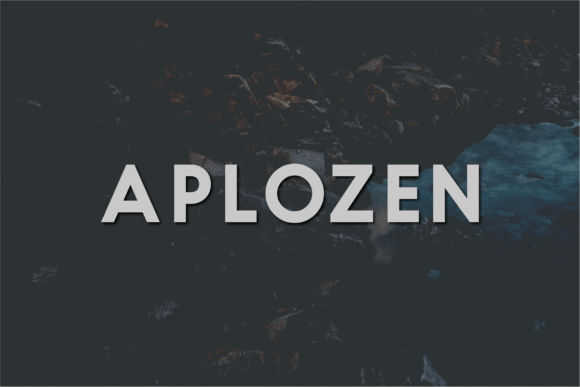
Aplozen Font: Elevate Your Designs with a Versatile and Modern Sans Serif
In the world of typography, fonts play a crucial role in communicating a message effectively. A well-chosen font can make or break a design, and that’s where Aplozen Font comes in – a game-changer for designers and crafters alike. Aplozen is a versatile, modern, and classy sans serif font that’s perfect for a wide range of applications, from logos and weddings to invitations, quotes, advertisements, print, magazines, and more.
The Characteristics of Aplozen Font
Aplozen Font boasts a clean and minimalist design, making it an excellent choice for designers who want to add a touch of sophistication to their work. Its sans serif style gives it a modern and edgy feel, while its versatility ensures that it can be used in various contexts. Whether you’re working on a logo, a wedding invitation, or a magazine spread, Aplozen Font is sure to impress.
What Makes Aplozen Font Stand Out
So, what sets Aplozen Font apart from other fonts? Here are a few reasons why it’s a cut above the rest:
- Versatility: Aplozen Font is designed to be versatile, making it perfect for a wide range of applications. Whether you’re working on a logo, a wedding invitation, or a magazine spread, Aplozen Font is sure to fit the bill.
- Modern and Classy: Aplozen Font’s modern and classy design ensures that your work looks up-to-date and sophisticated. Its clean lines and minimalist style make it perfect for designers who want to add a touch of elegance to their work.
- Easy to Read: Aplozen Font is designed to be easy to read, making it perfect for body text and headings. Its clear and concise design ensures that your message gets across effectively.
Use Cases for Aplozen Font
Aplozen Font is perfect for a wide range of applications, including:
- Logos: Aplozen Font’s modern and classy design makes it perfect for logos. Its versatility ensures that it can be used in various industries, from tech to fashion.
- Weddings and Invitations: Aplozen Font’s elegant design makes it perfect for weddings and invitations. Its clean lines and minimalist style ensure that your invitation or wedding stationery looks sophisticated and classy.
- Quotes and Advertisements: Aplozen Font’s modern design makes it perfect for quotes and advertisements. Its clear and concise style ensures that your message gets across effectively.
- Print and Magazines: Aplozen Font’s versatility ensures that it can be used in various print applications, from magazines to brochures.
Tips for Using Aplozen Font
Here are a few tips for using Aplozen Font effectively:
- Pair it with Other Fonts: Aplozen Font can be paired with other fonts to create a unique and interesting design. Experiment with different font combinations to find the perfect match.
- Use it for Headings and Body Text: Aplozen Font is perfect for both headings and body text. Its clear and concise design ensures that your message gets across effectively.
- Experiment with Different Sizes: Aplozen Font can be used in various sizes, from small to large. Experiment with different sizes to find the perfect fit for your design.
In conclusion, Aplozen Font is a versatile, modern, and classy sans serif font that’s perfect for designers and crafters alike. Its clean lines, minimalist style, and versatility make it an excellent choice for a wide range of applications. Whether you’re working on a logo, a wedding invitation, or a magazine spread, Aplozen Font is sure to impress. So why wait? Add Aplozen Font to your design arsenal and notice how it brings your creative ideas to life!
- Aplozen Font is a versatile, modern, and classy sans serif font.
- It’s perfect for logos, weddings, invitations, quotes, advertisements, print, magazines, and more.
- Aplozen Font is easy to read and can be used for both headings and body text.
- It’s a great choice for designers who want to add a touch of sophistication to their work.